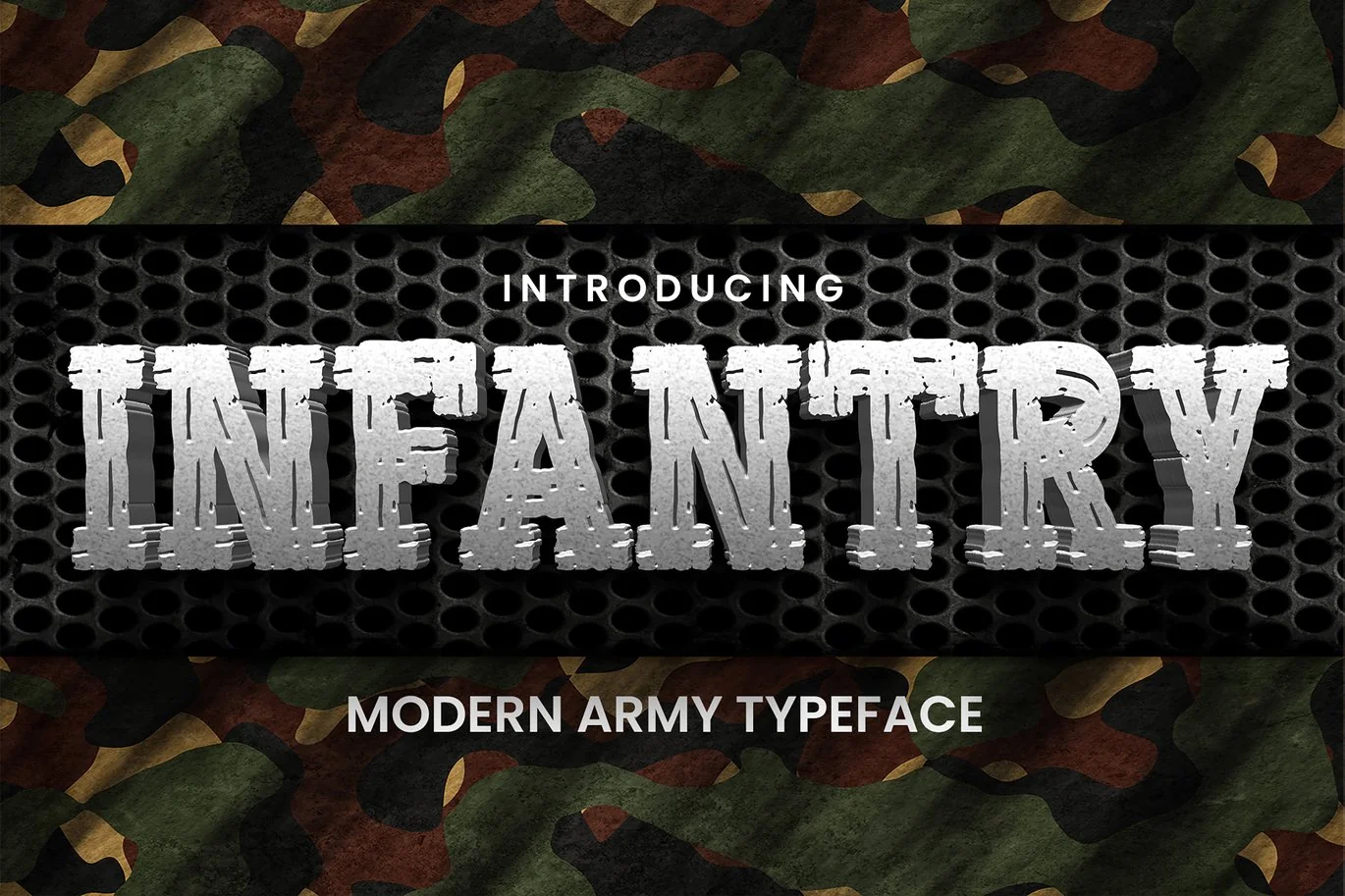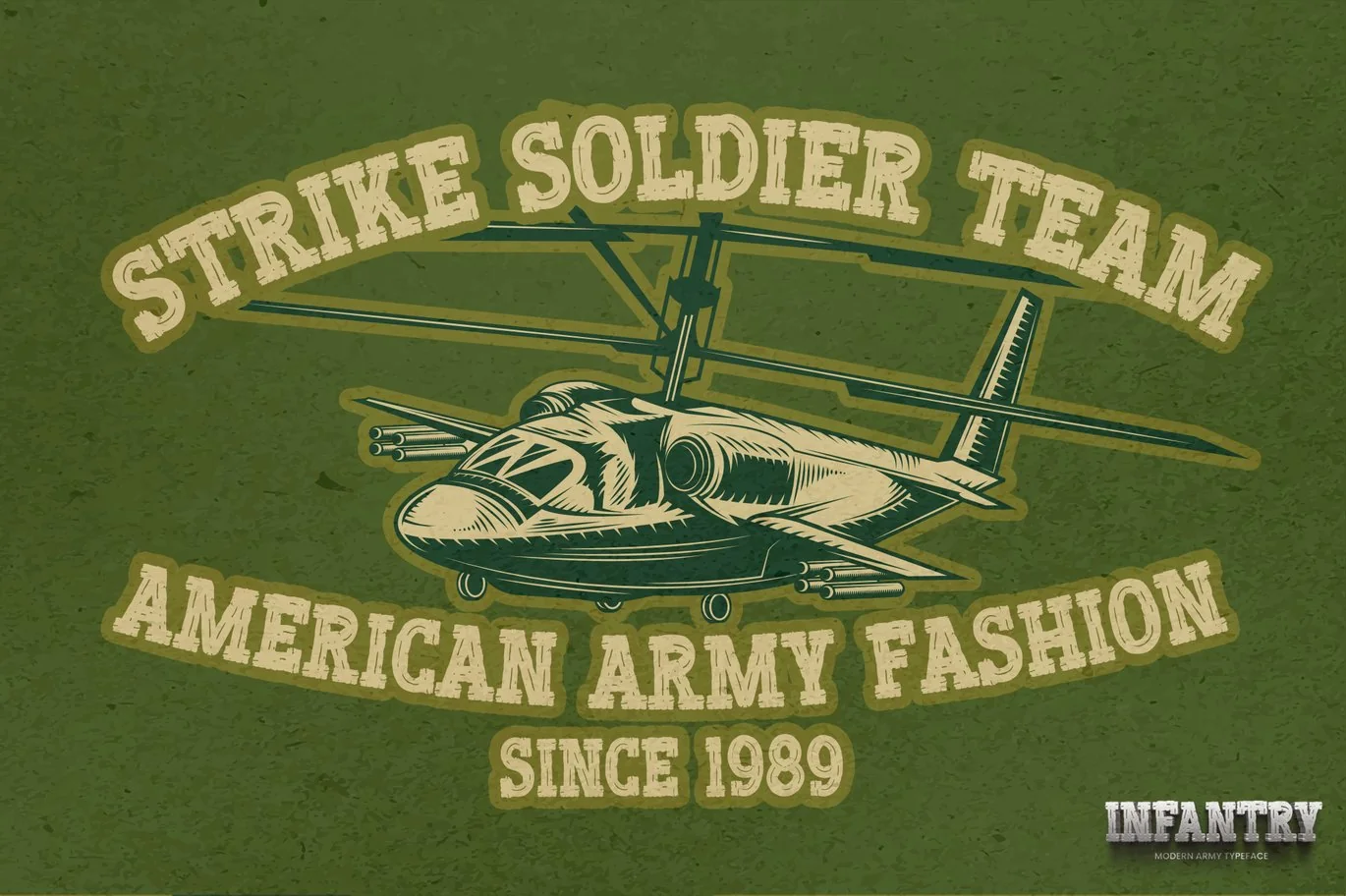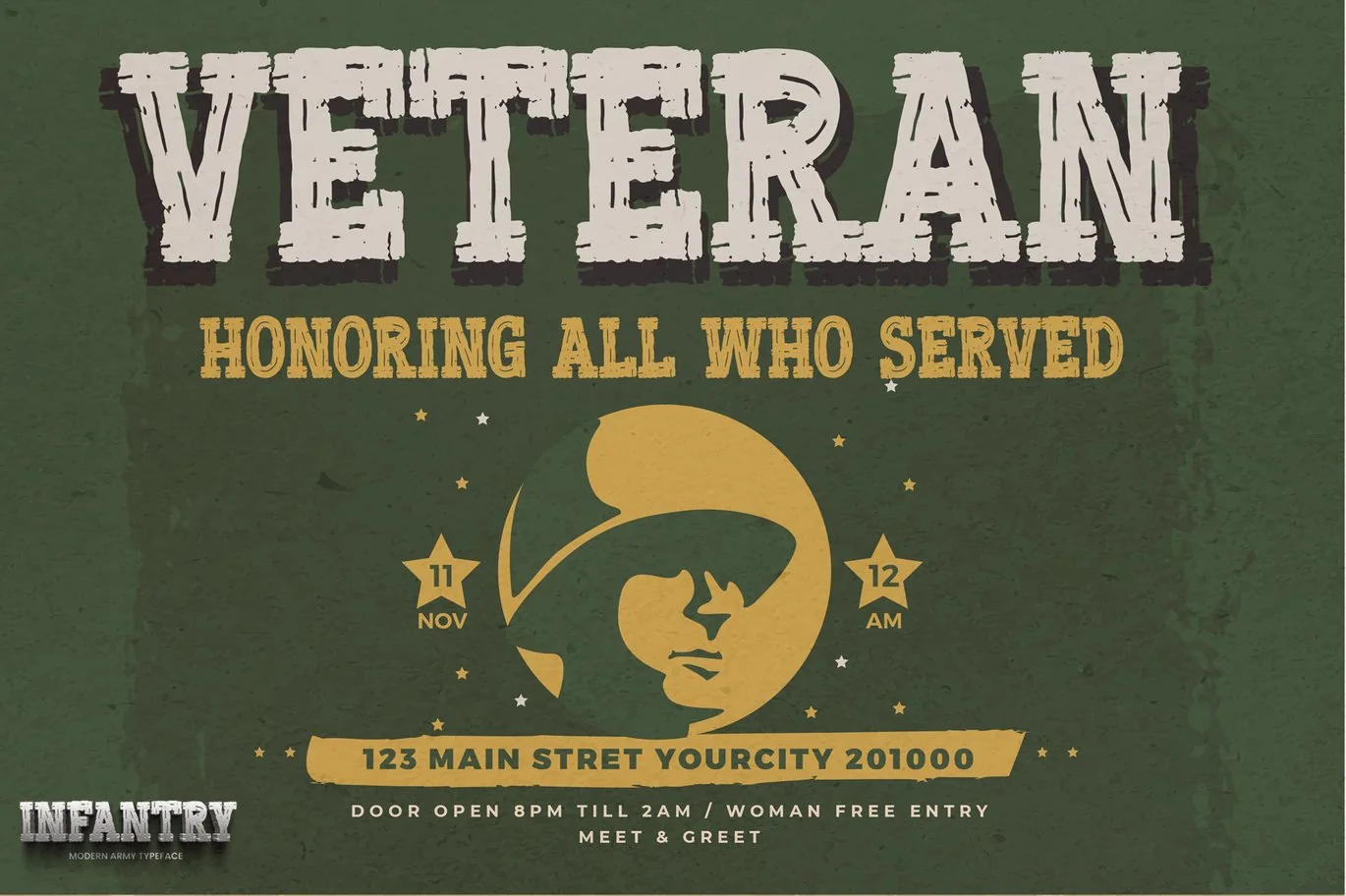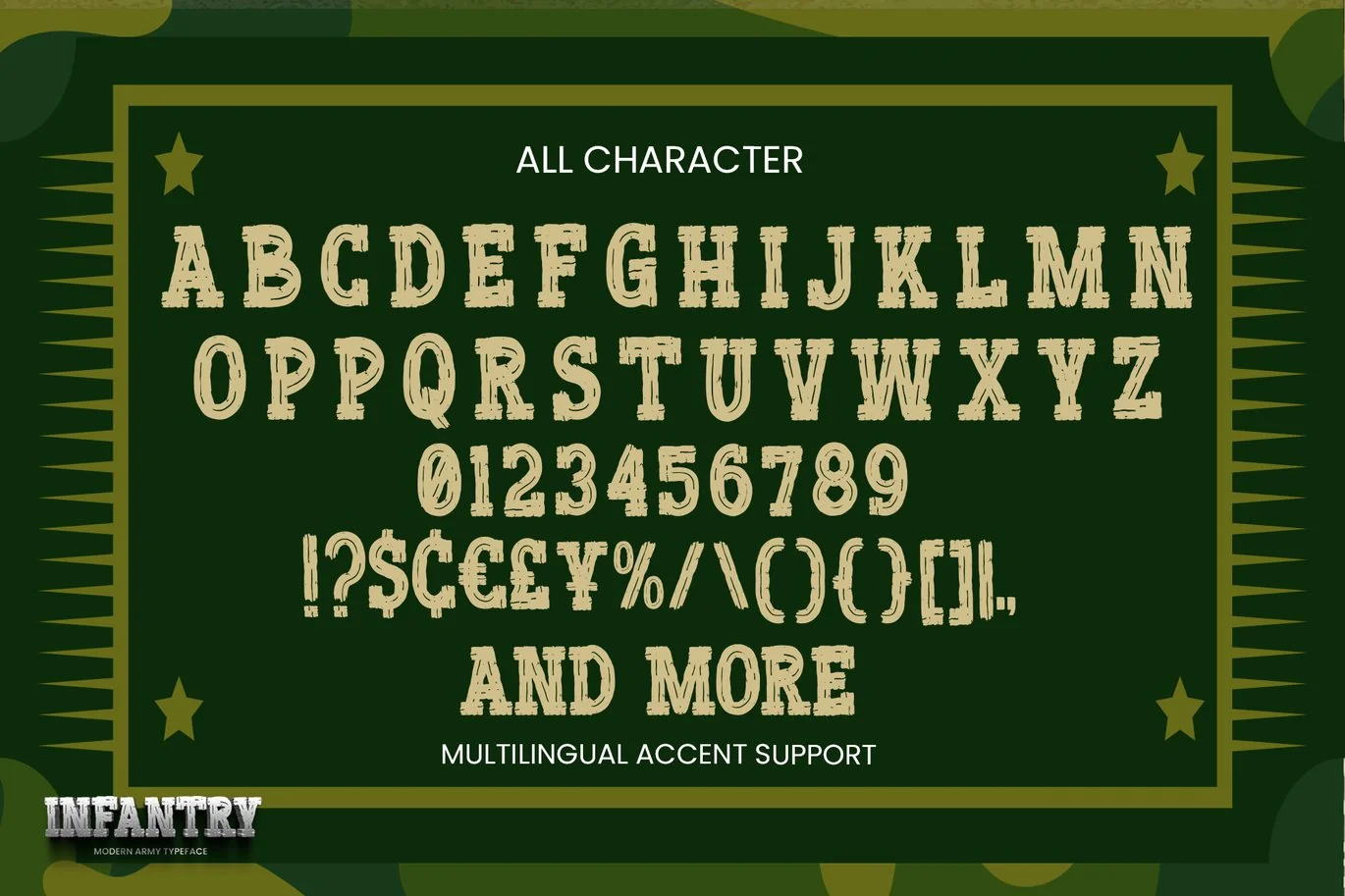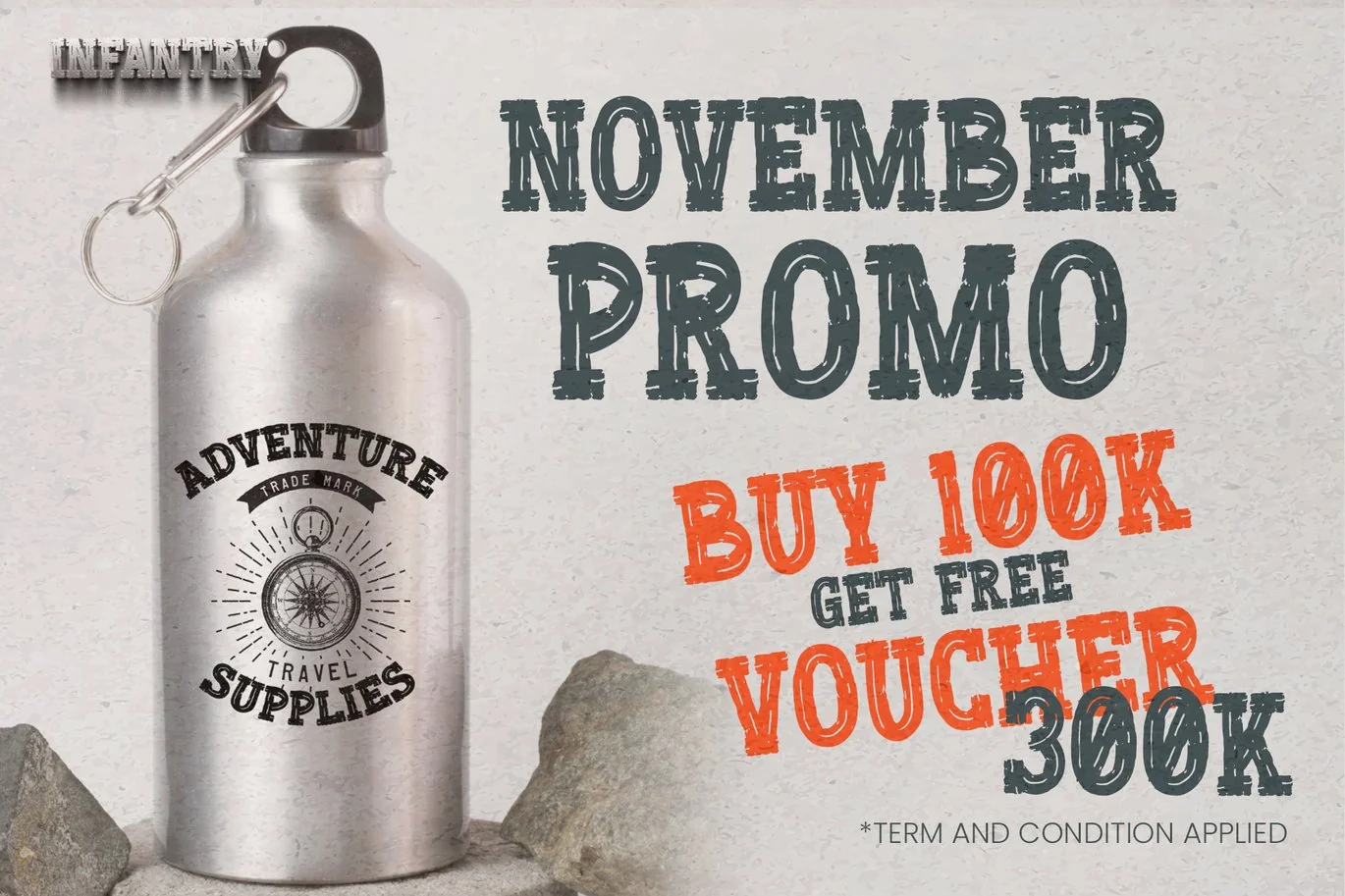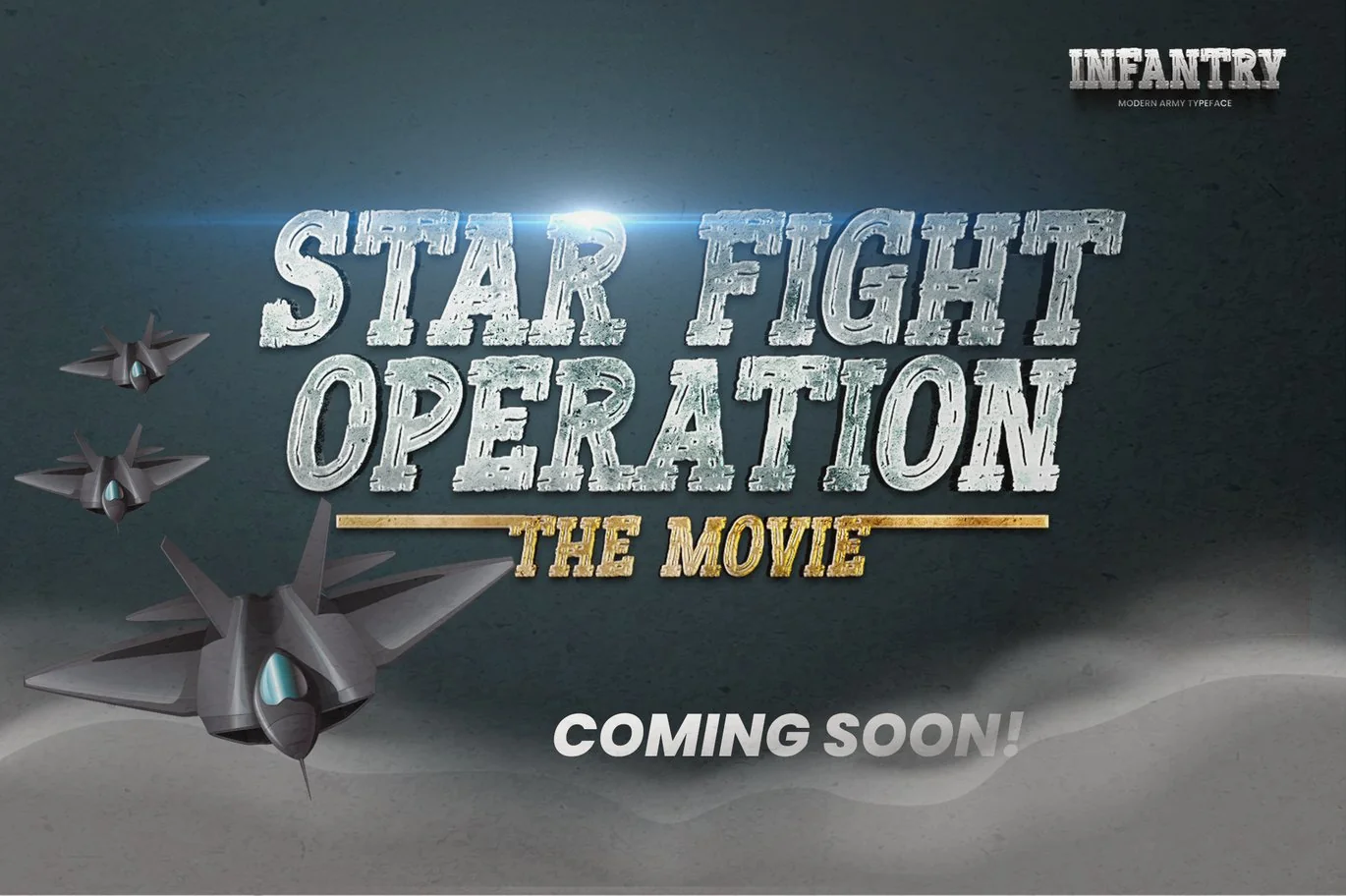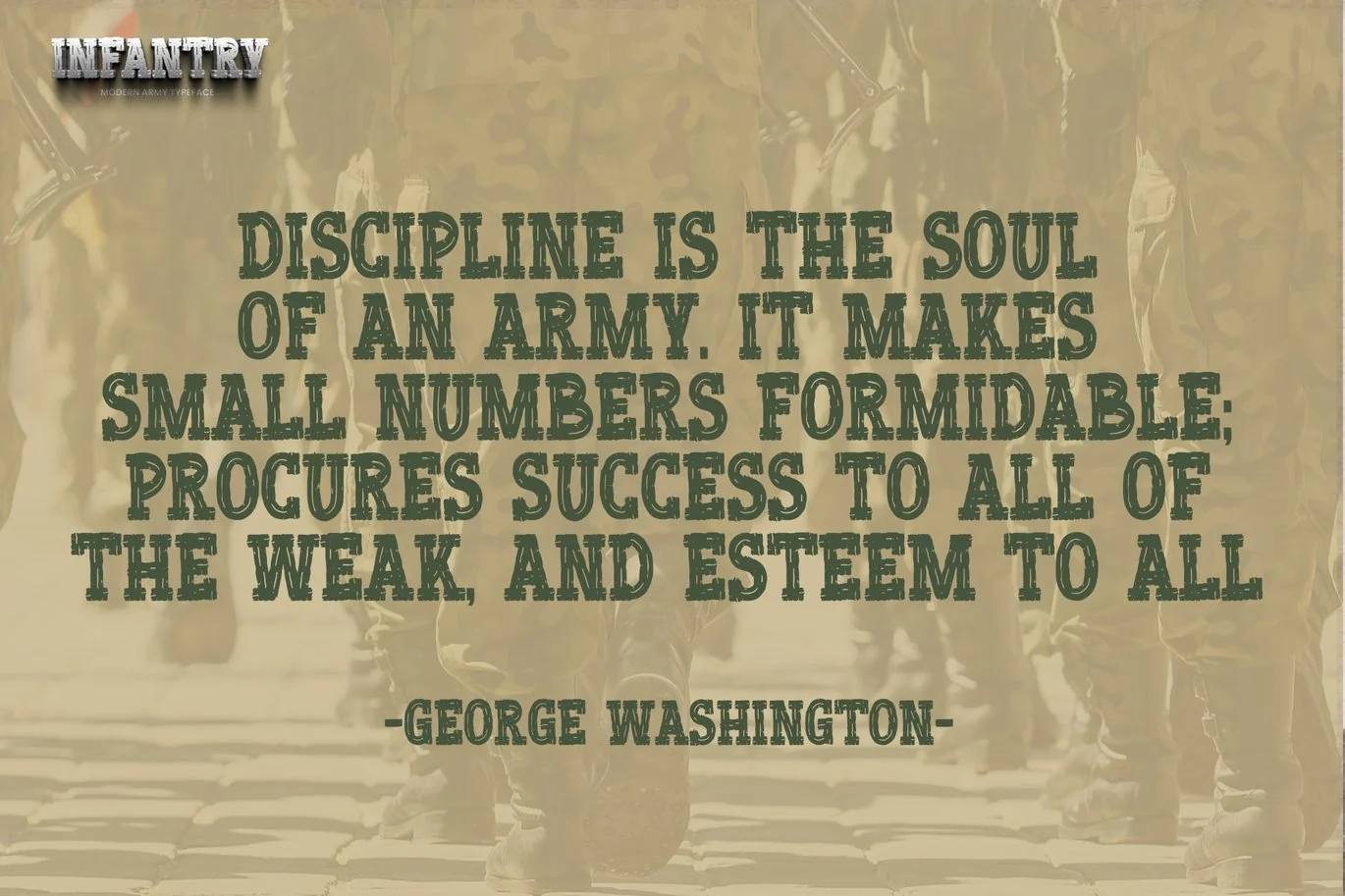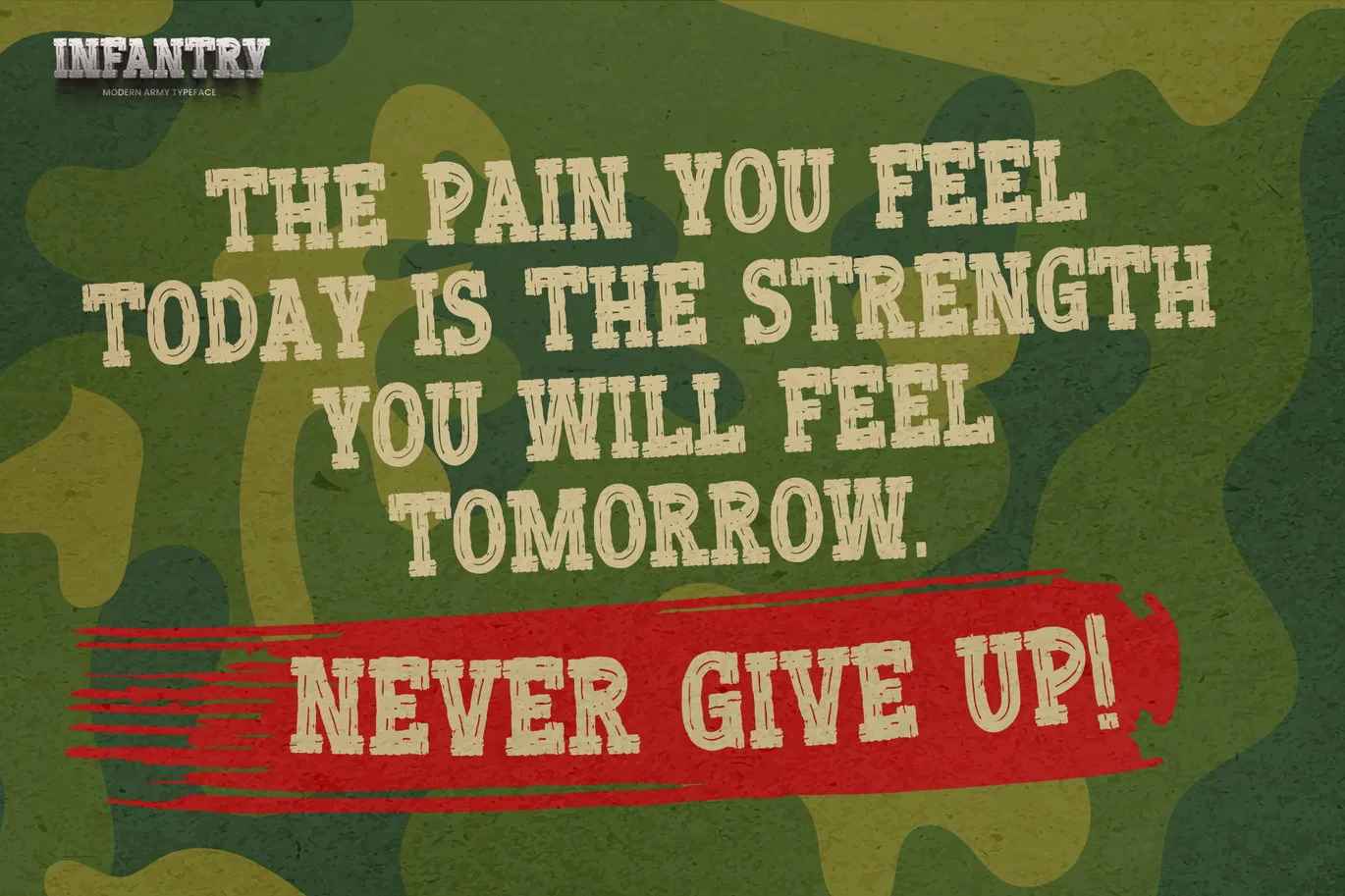
INFANTRY – Modern Army Typeface
INFANTRY – Modern Army Typeface Military Serif Font, first conceptualize was inspired by the classic vintage military stencil design .
I wanted a typeface that could be a solid base for any military inspired project INFANTRY Fonts can be used for wallpaper, pattern fills, web page background, surface textures. Perfect for making army posters , scrapbooking,invitation cards, stationary, gift wrap, packaging, buttons, pendants, holiday gifts, print on fabrics and so much more.